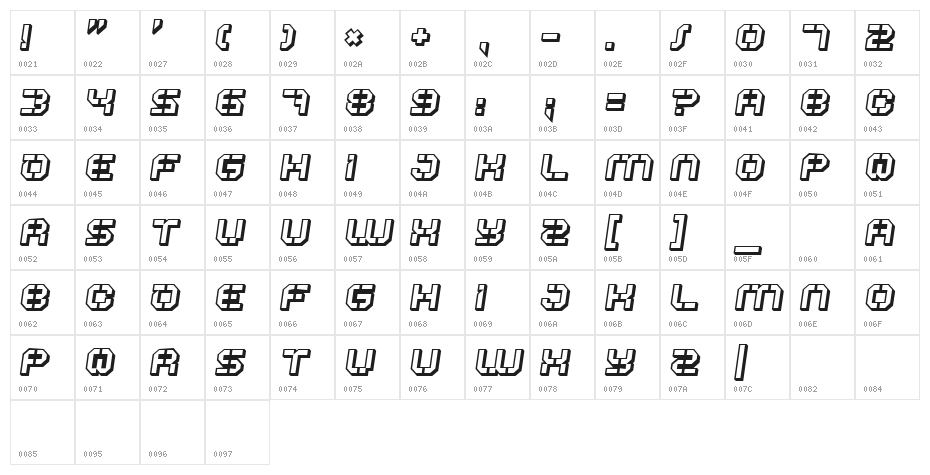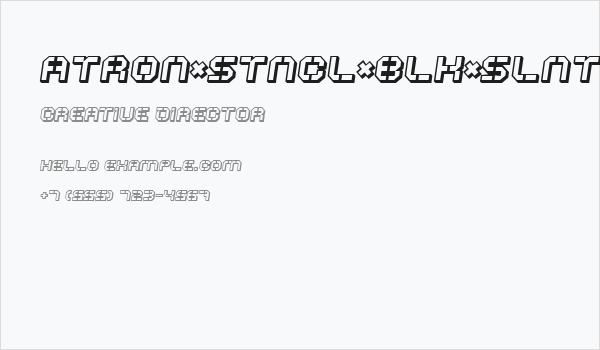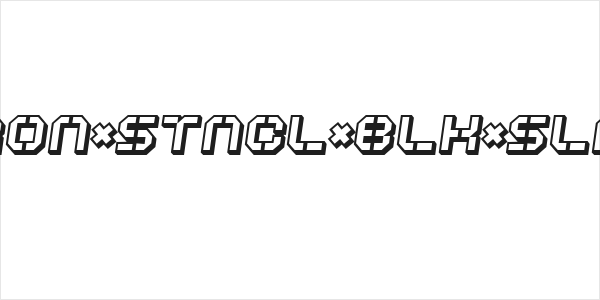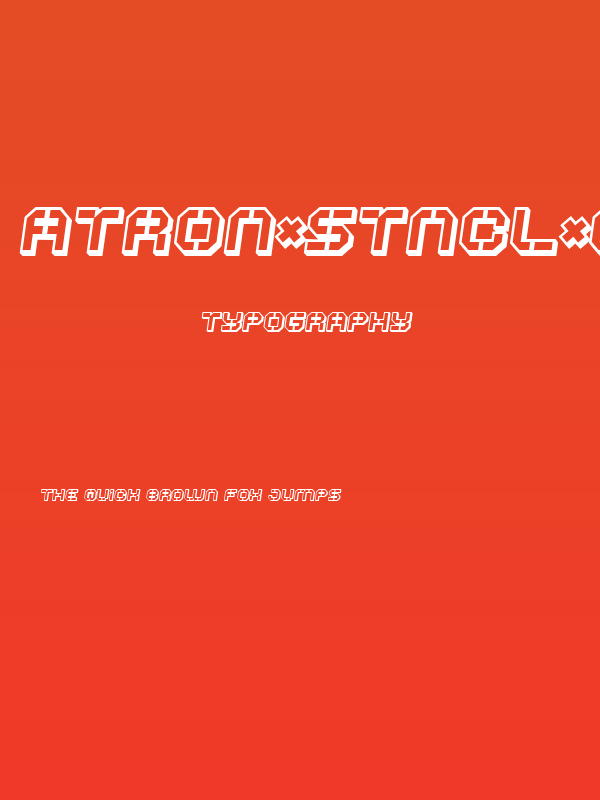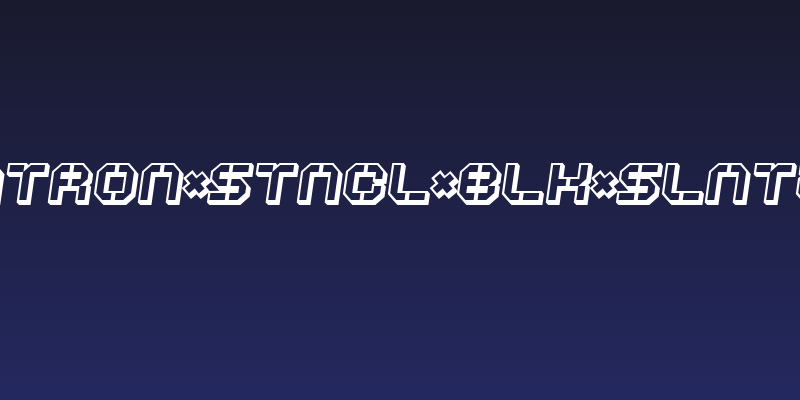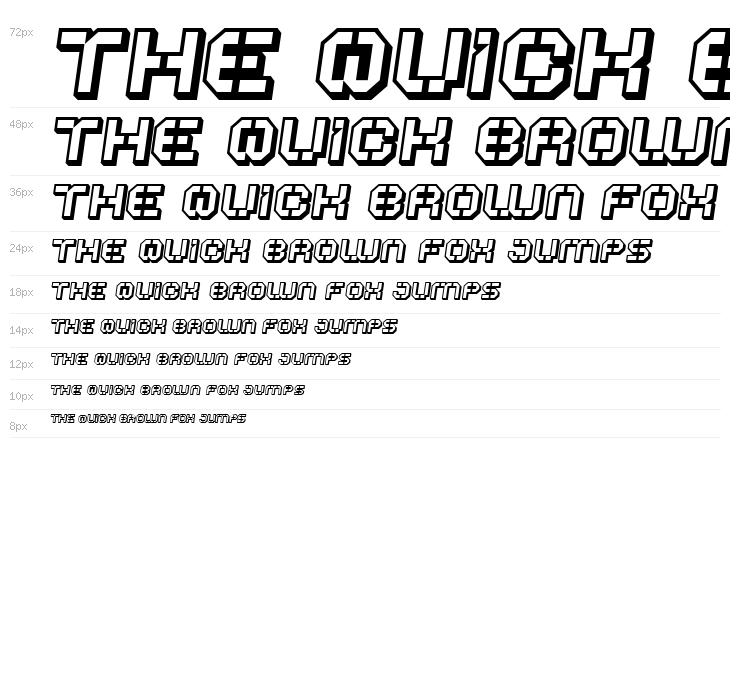
ATRON*STNCL*BLK*SLNTD Font
ATRON*STNCL*BLK*SLNTD Description
This font features a bold, geometric design with a stencil-like appearance. The characters are constructed with thick, angular lines that create a sense of depth and dimension. The slanted orientation adds a dynamic and modern feel, while the stencil cutouts give it an industrial and utilitarian look. This combination of elements makes it stand out as a display font, suitable for attention-grabbing headlines or branding materials. The uppercase and lowercase letters maintain a consistent style, and the numerals and special characters are designed to match the bold, structured aesthetic.
| Overall Style | Modern, Industrial |
| Proposed Projects | Ideal for use in branding, posters, signage, and any project requiring a strong, industrial aesthetic. |